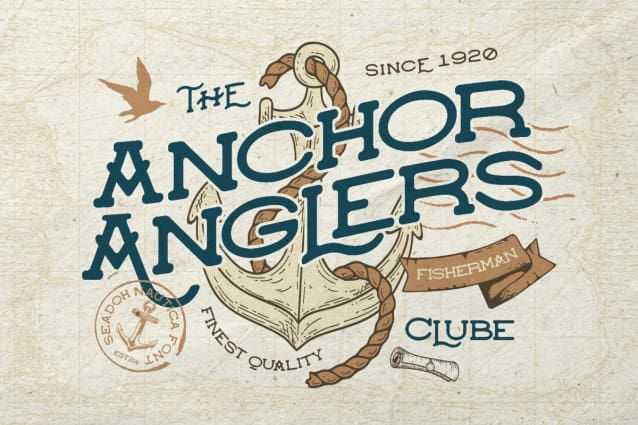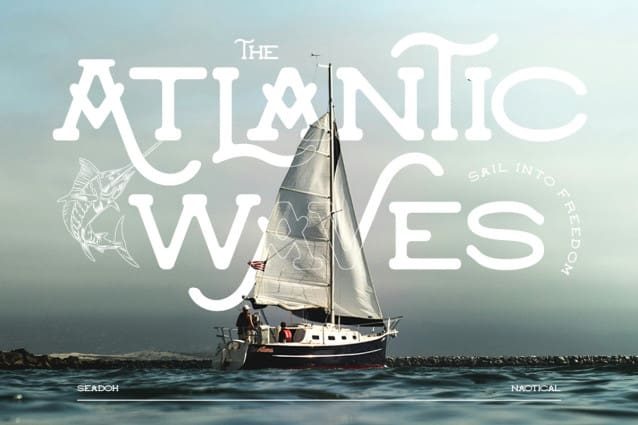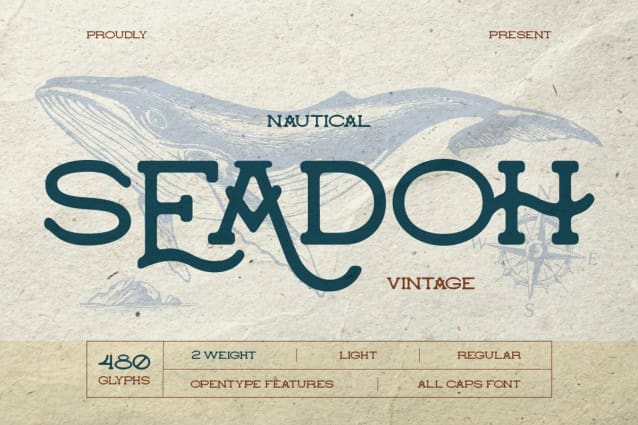
Seadoh Vintage Font
Seadoh Vintage Font, inspired by maritime themes. This font combine modern look and sense of adventure. Seadoh charaterized of bold and chunky letters make it look vintage and retro feel. With 2 weight, light and regular, this font ideal for any kind project that need a touch of the sea, such as logo, poster, greeting card, signage, headline/titles and many more.